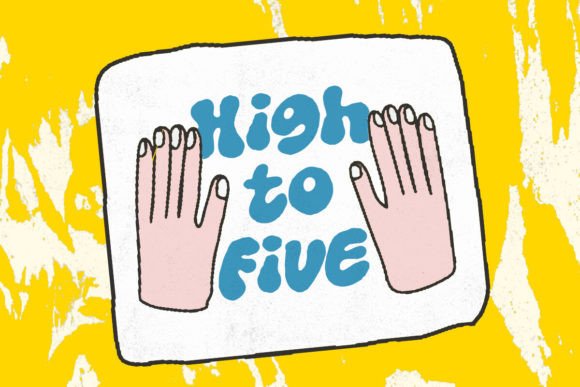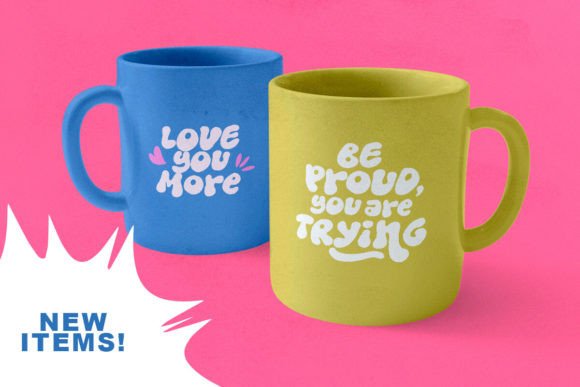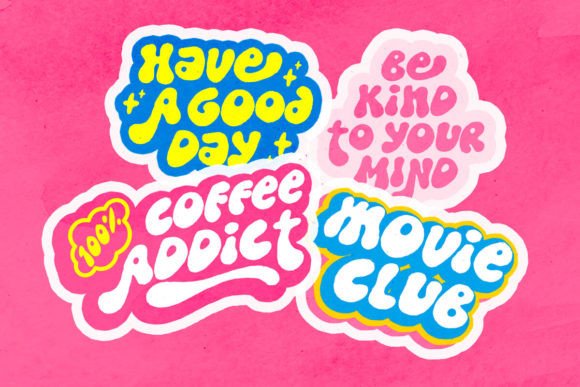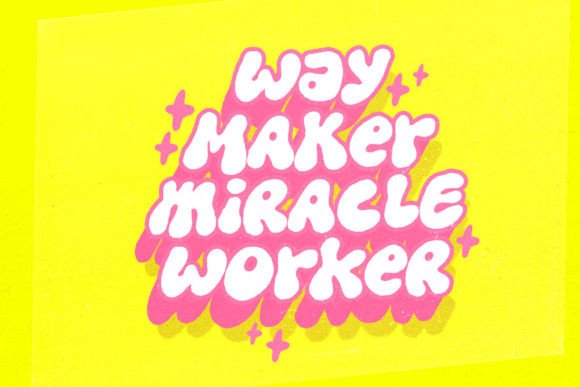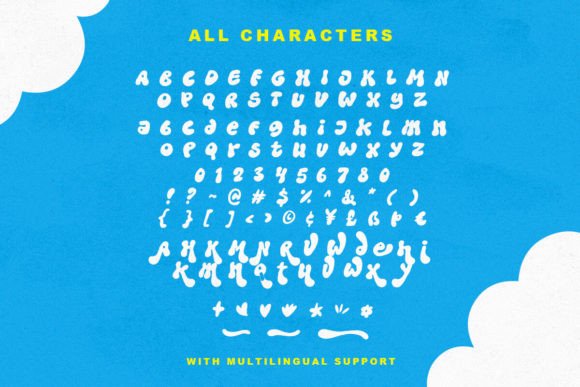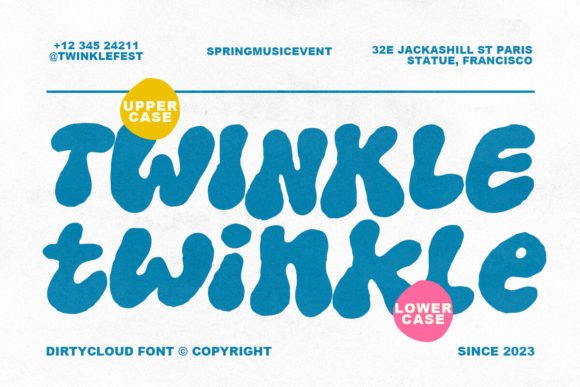
Introduction to Dirty Clouds Font
Have you ever been stuck in the midst of a creative project, frantically searching for the perfect font to give it that extra oomph? You’ve scrolled through page after page of fonts, but nothing seems to capture the essence of your vision. That’s when you stumble upon it – the Dirty Clouds Font. This hand-drawn bubble font is a game-changer, offering a unique blend of organic charm and rough edges that will make your design pop.
As a designer, you know the value of having high-quality design resources at your fingertips. The Dirty Clouds Font is a valuable addition to any design arsenal, providing a versatile and customizable tool for creating unique and eye-catching projects. With its transparent background and free download option, you can easily integrate it into your workflow and explore new creative possibilities.
Key Features of Dirty Clouds Font
- Unique, hand-drawn style with a distressed, vintage aesthetic
Honest Review: Dirty Clouds Font
As a designer, I’m always on the lookout for high quality design resources to elevate my creative projects. Recently, I came across the Dirty Clouds Font, and I have to say, it’s been a great addition to my toolkit.
Here’s what works well: ✨ The font is highly customizable, allowing me to adjust the color and transparency to suit my design needs. The transparent background is a huge plus, making it easy to layer over images or other design elements. Additionally, the font is incredibly versatile, suitable for a wide range of creative projects from logos to digital art.
Overall, I’m really impressed with the Dirty Clouds Font. It’s a great resource for designers who want to add a unique touch to their creative projects. Just be sure to check the usage terms before using it for commercial purposes.
The Dirty Clouds Font is a unique design resource that can add a touch of elegance to your creative project. This high-quality font features a transparent background, making it perfect for overlaying on images or using as a standalone element.
Tips for Getting the Most Out of Dirty Clouds Font
To get the most out of the Dirty Clouds Font, use it in conjunction with other design elements, such as images or shapes. Experiment with different font sizes and colors to create a unique and eye-catching design.
Common Use Cases for Dirty Clouds Font
The Dirty Clouds Font is perfect for a variety of design projects, including: social media graphics, blog posts, and presentations. Its high-quality design and transparent background make it an excellent choice for any creative project.